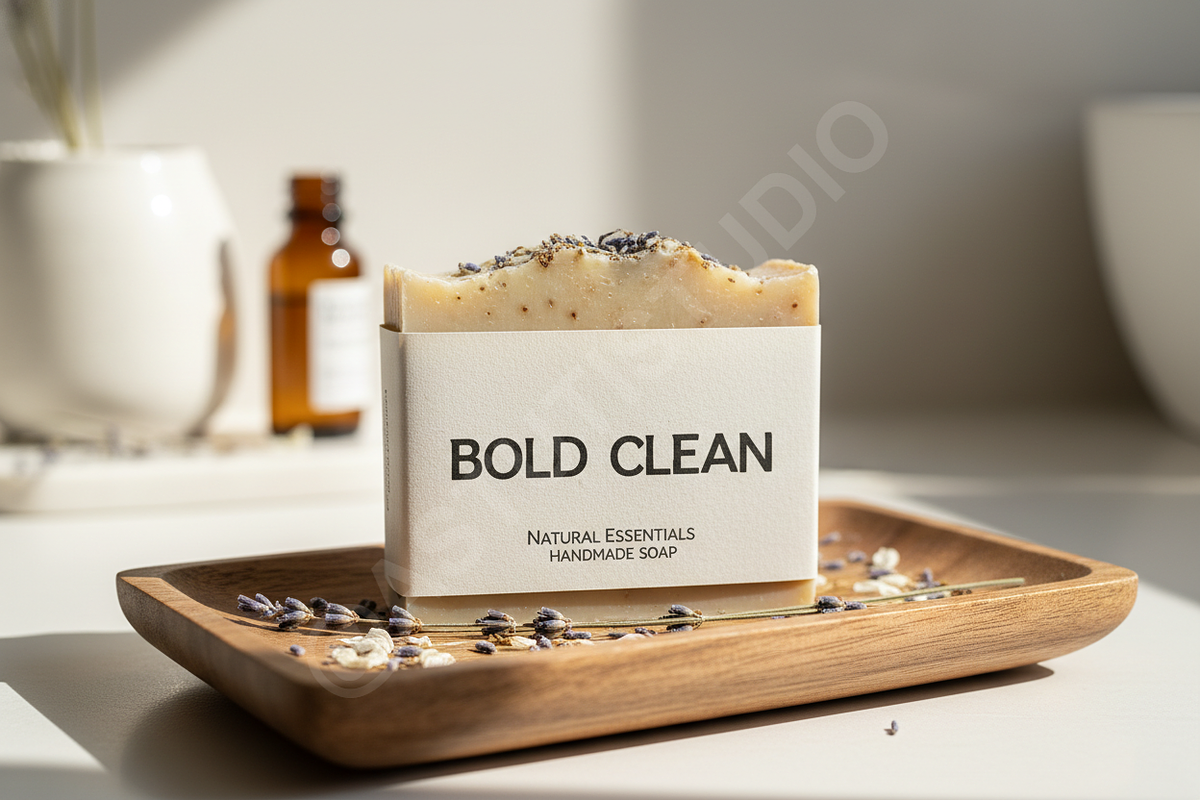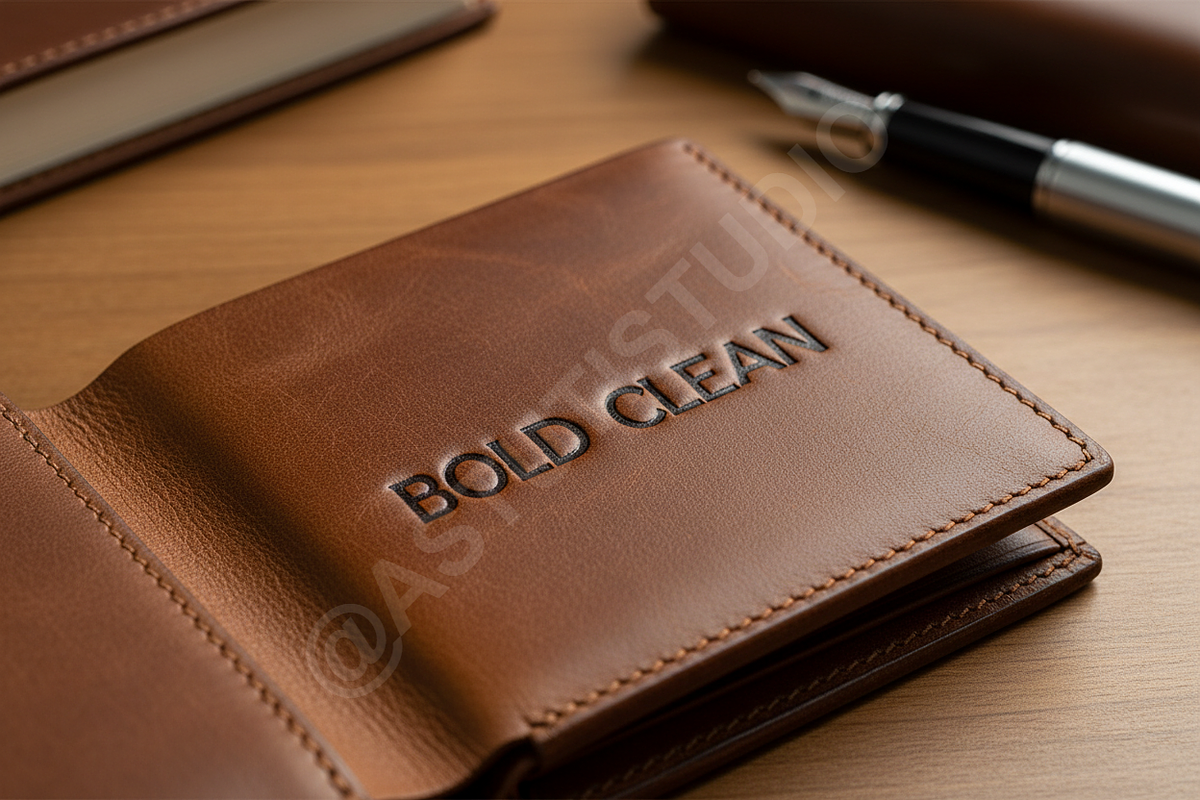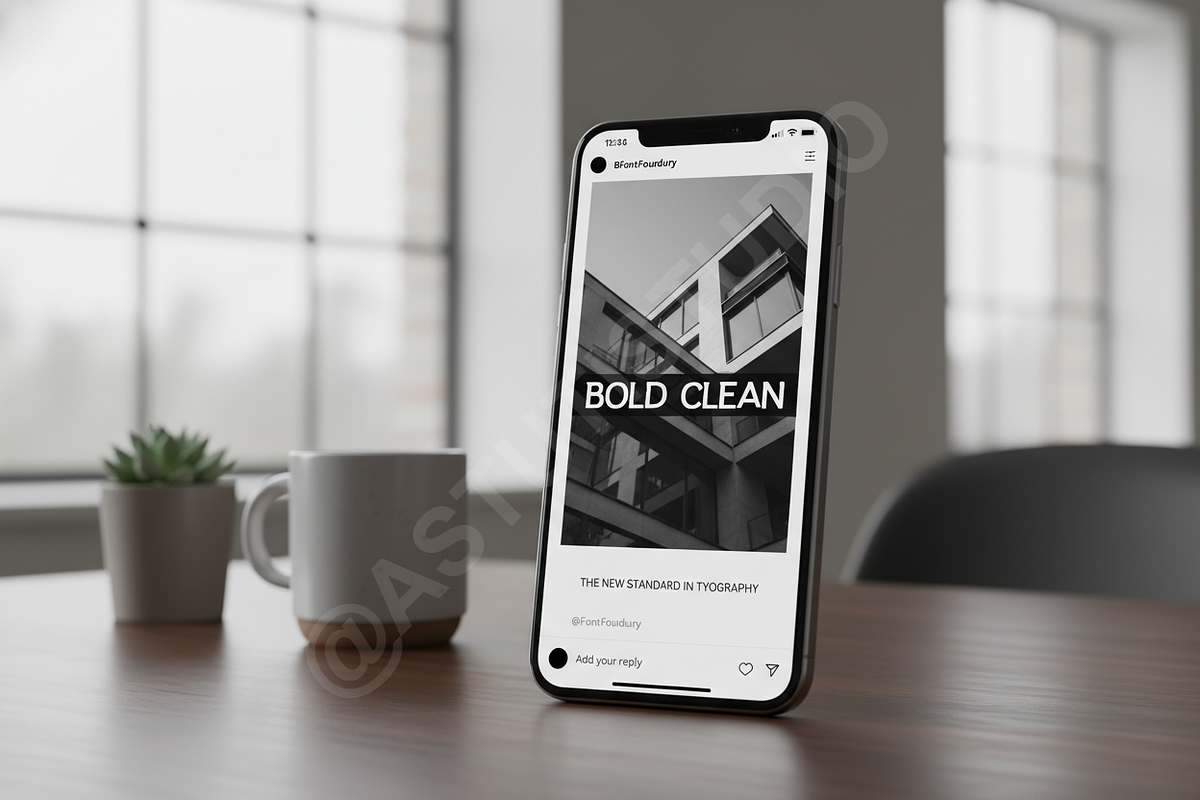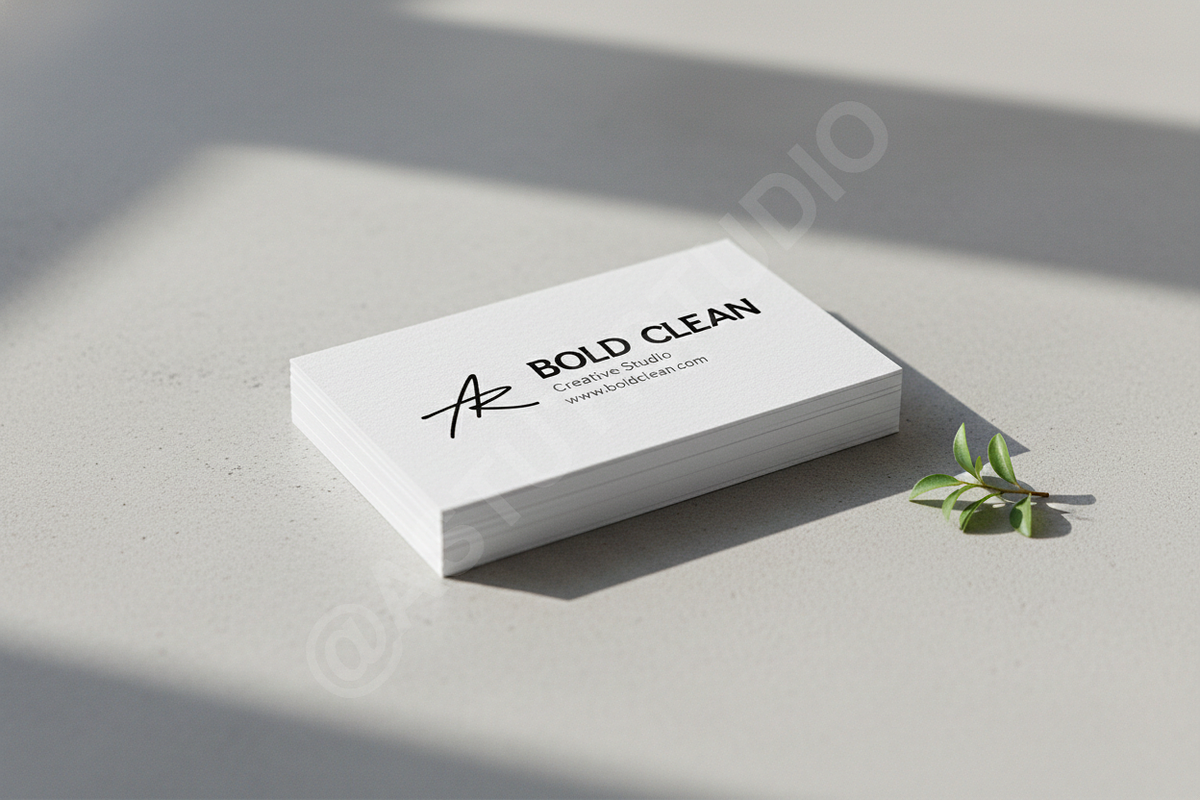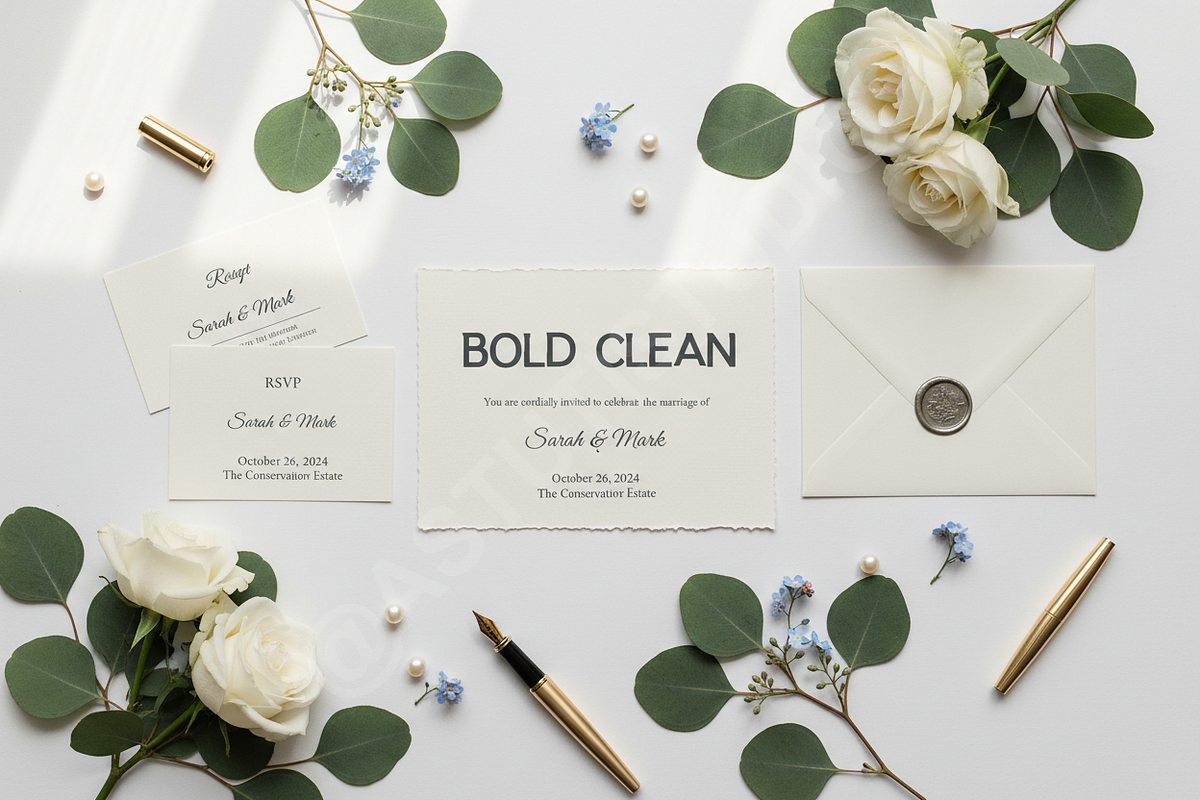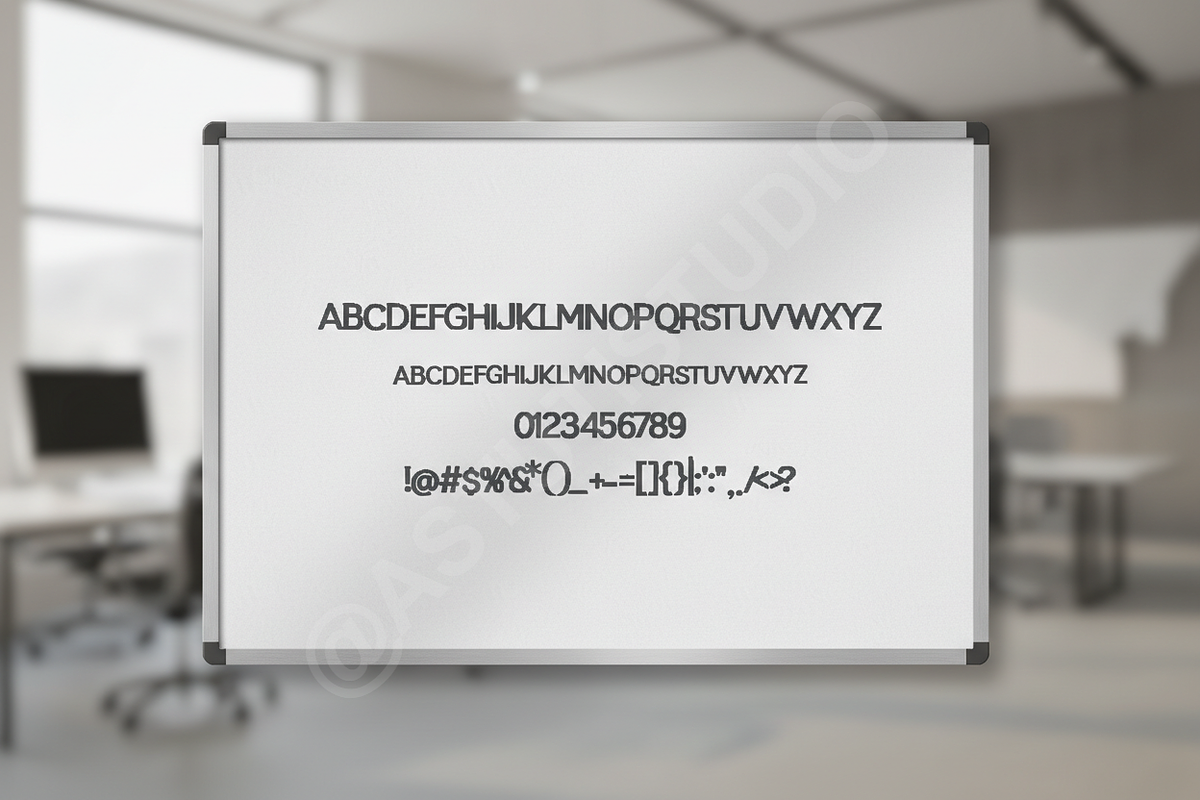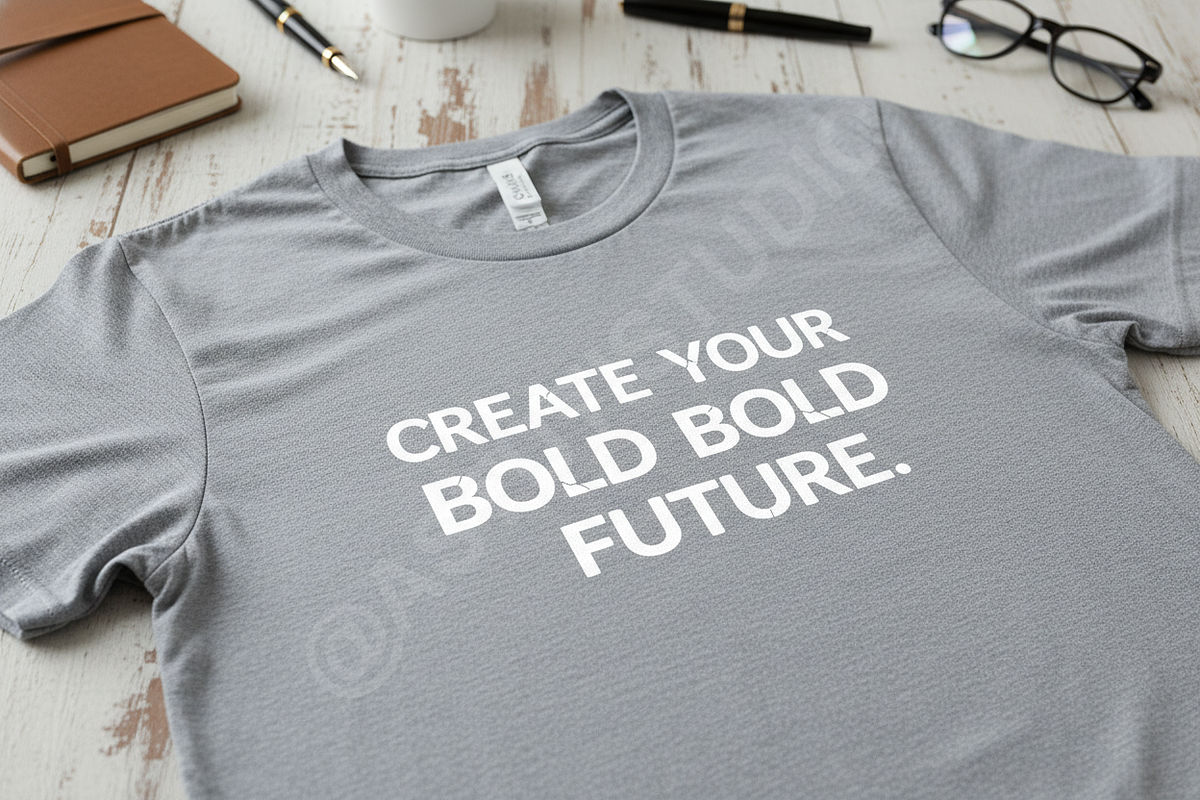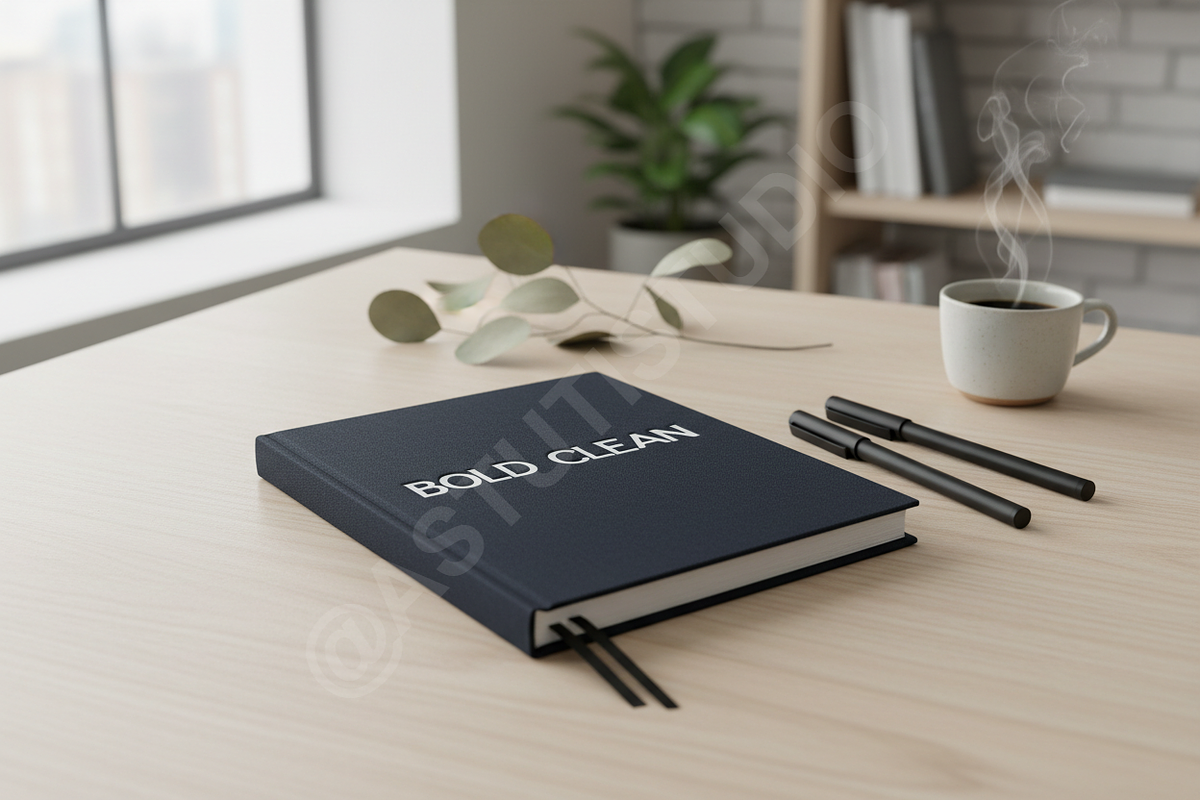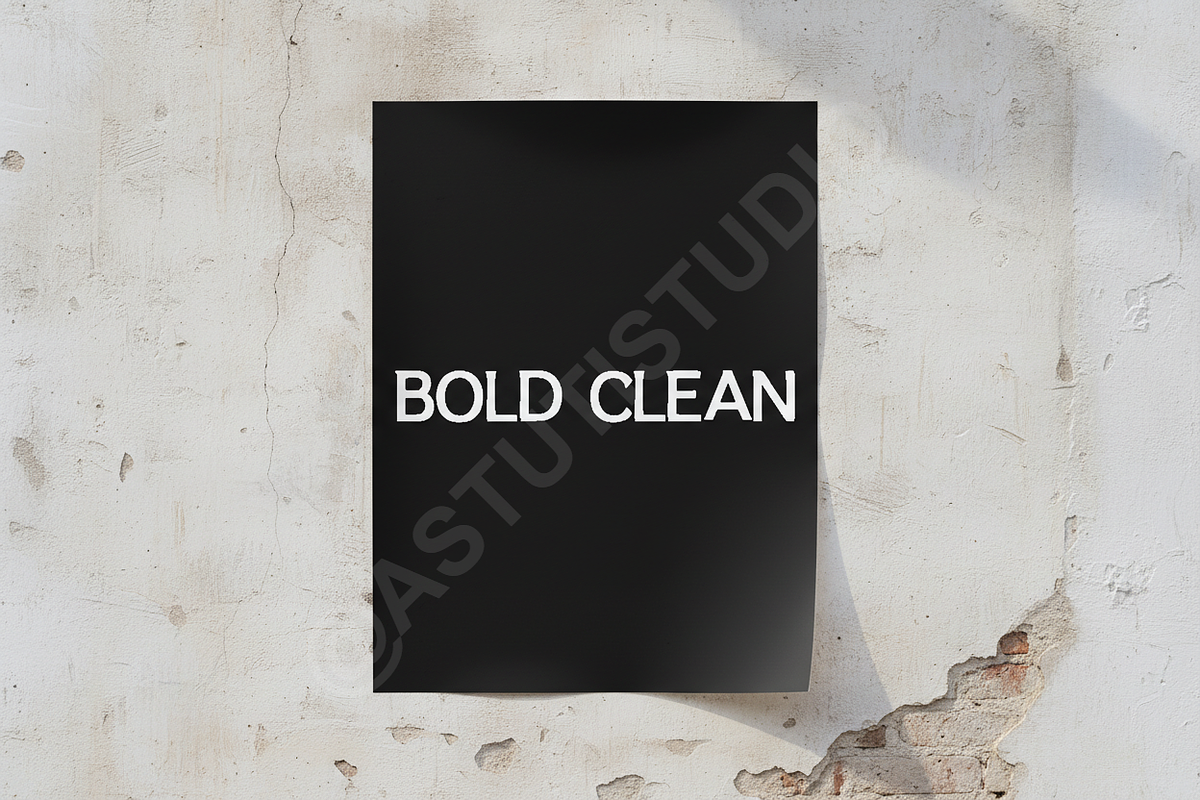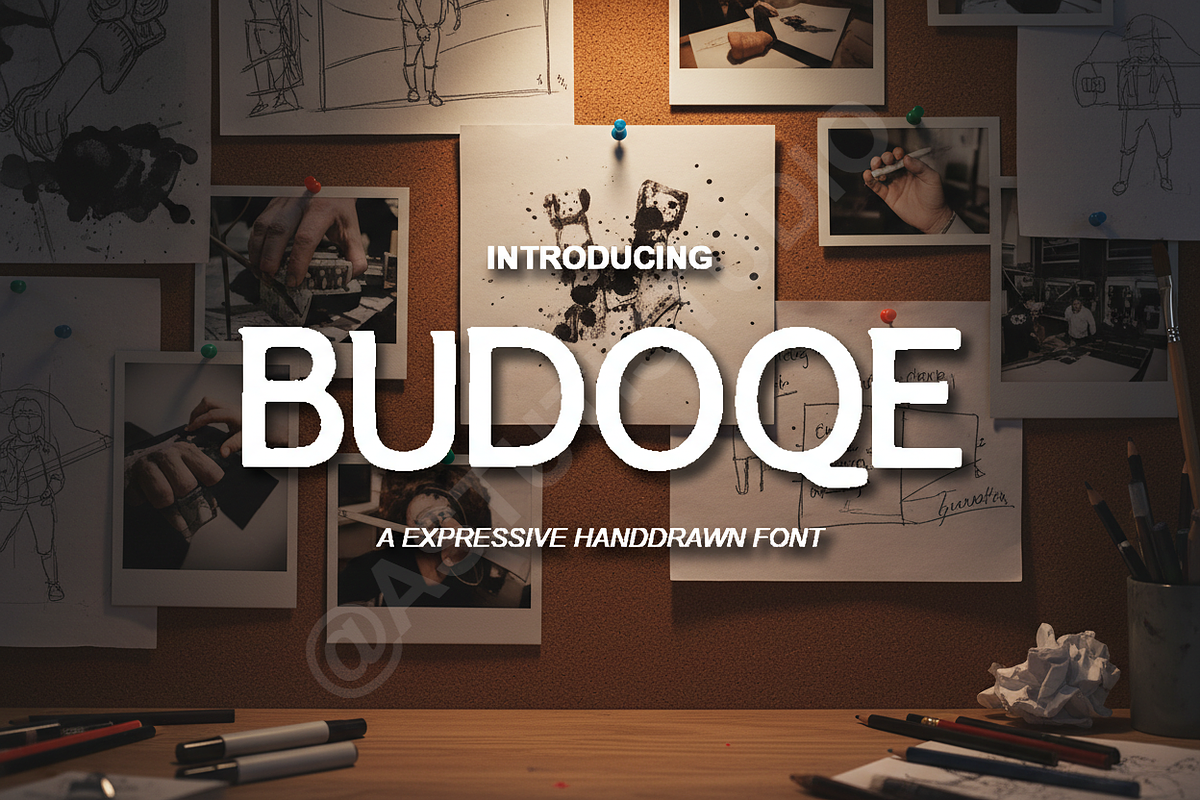
Budoqe: The Elegant Modern Serif for
Budoqe is an exquisitely crafted modern serif typeface designed for discerning creatives seeking unparalleled sophistication. Merging classic proportions with sharp, contemporary terminals, Budoqe provides an instant touch of elevated luxury to any project. It is the definitive choice for premium identity design, high-fashion editorials, and influential social media campaigns.
Key Features & Versatility
- Luxury & Editorial Ready: Optimized for high-resolution print and screen display, ensuring clean readability in headlines and body text.
- Refined Styling: Includes a comprehensive set of elegant discretionary ligatures and stylistic alternates to customize your typography.
- Multi-Lingual Support: Extensive character set covering over 100 languages for global brand reach.
- Punctuation & Numerals: Complete set of punctuation, symbols, and precise lining figures.
- Usage Spectrum: Ideal for logo design, mastheads, packaging, wedding invitations, and polished website interfaces.
- Full Glyph Set, Alternates, and Ligatures.